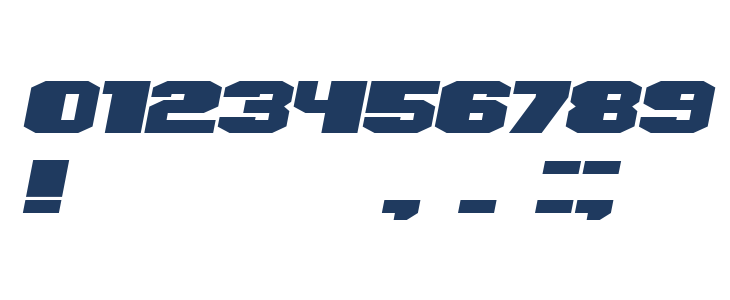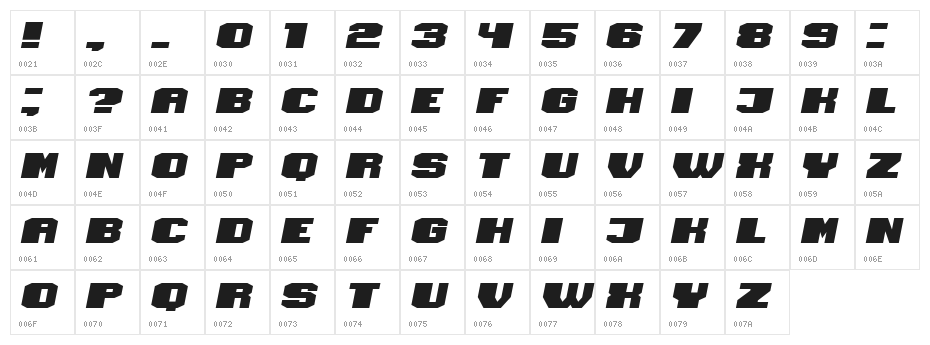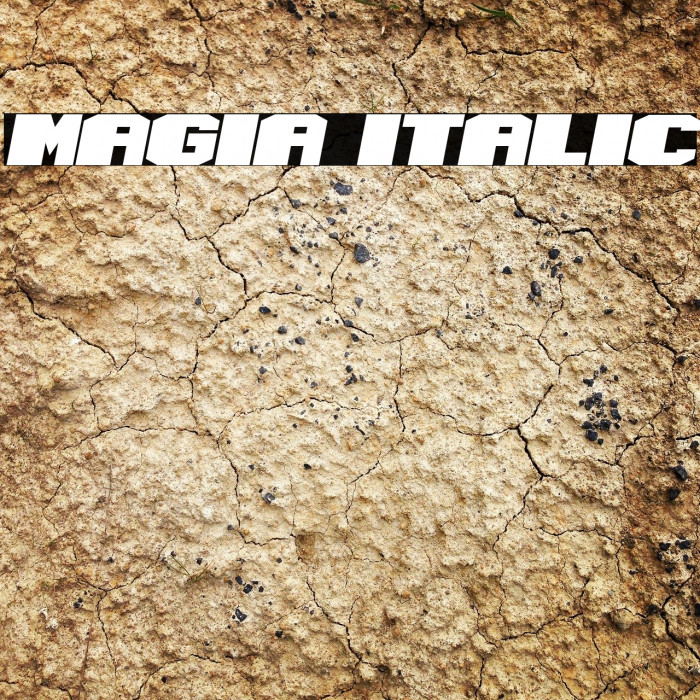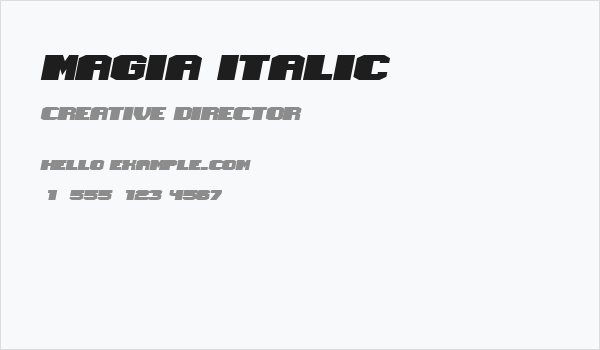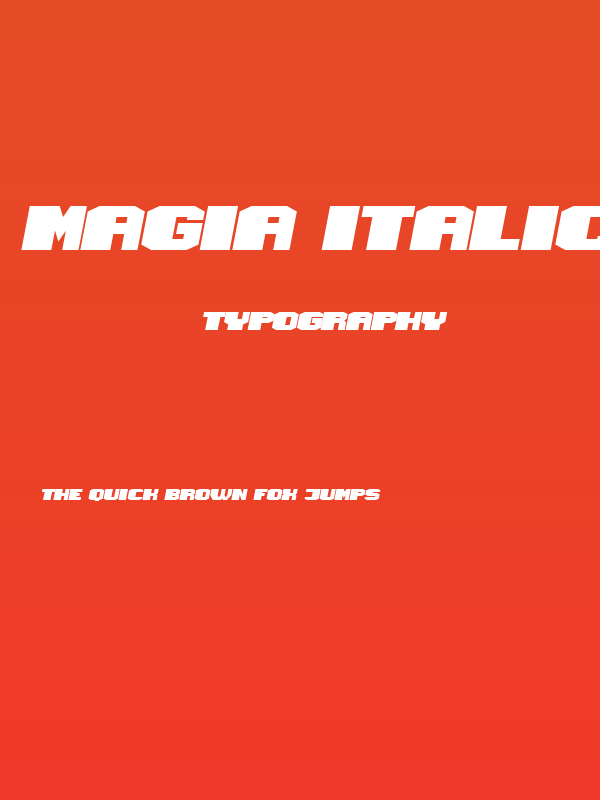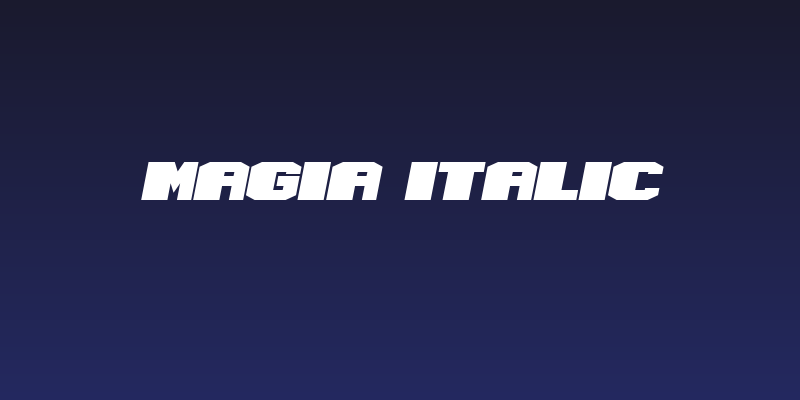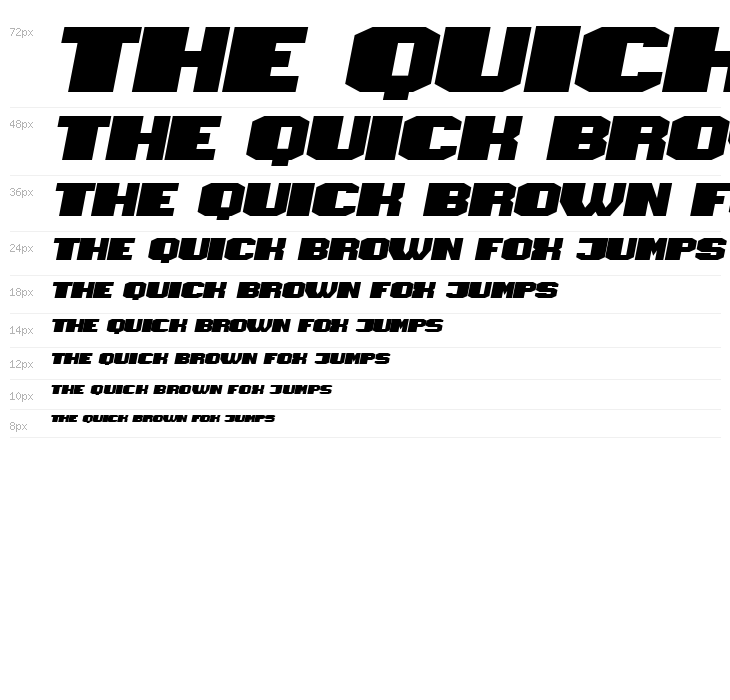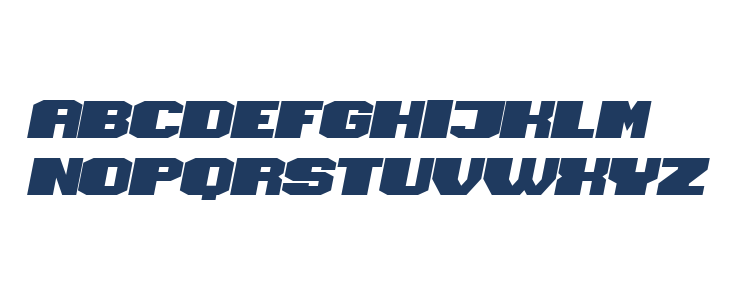
Magia Italic Font
Magia Italic Description
This font exhibits a bold and dynamic style with a strong italic slant, giving it a sense of motion and energy. The characters are robust and angular, featuring sharp edges and a geometric structure that conveys a modern and assertive appearance. The uppercase and lowercase letters maintain a consistent weight, providing a uniform look across the text. The numerals and special characters are designed to match the boldness and angularity of the alphabet, ensuring a cohesive visual experience. The font's thick strokes and minimal contrast between thick and thin lines enhance its bold presence, making it suitable for impactful and attention-grabbing designs.